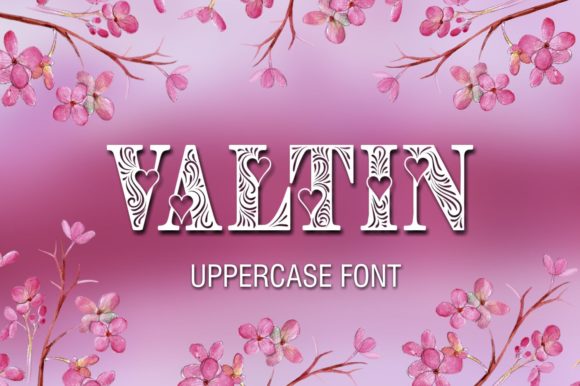
Unleash your creativity with Valtin Font, a decorative typeface that dances across your screen with charm. Its playful letters add a touch of whimsy to any design, making it the perfect choice for crafting captivating headlines, logos, posters, and much more. Each character exudes a distinct personality, ready to ignite your imagination and turn your words into captivating works of art.
Experience the magic of typography as Valtin's unique style transforms your designs into captivating masterpieces. From whimsical invitations to eye-catching social media posts, Valtin adds a spark of delight to every project. Let its charming curves and playful flourishes elevate your designs to new heights, leaving a lasting impression on your audience.
Valtin's versatility knows no bounds, adapting seamlessly to a myriad of creative endeavors. Whether you're a seasoned designer or just starting your artistic journey, Valtin is your perfect companion. Its user-friendly nature makes it accessible to all, while its ability to command attention ensures your designs will shine.
With Valtin, you'll embark on a typographic adventure where imagination reigns supreme. Its distinctive charm will weave an enchanting spell over your audience, captivating them with every stroke. So, dive into the world of Valtin and allow your creativity to soar to new heights!
**Valtin Font: Key Features and Benefits:**
* A distinctive and playful font style that adds a touch of whimsy to any project.
* Perfectly suited for headlines, logos, posters, invitations, and more.
* Enchanting curves and playful flourishes that elevate your designs and captivate your audience.
* User-friendly and accessible to designers of all levels, making it the perfect choice for both professionals and beginners.
* Versatile enough to adapt to a wide range of creative projects, ensuring your designs always stand out.
* Experience the magic of typography with Valtin, the decorative font that transforms your words into captivating works of art.